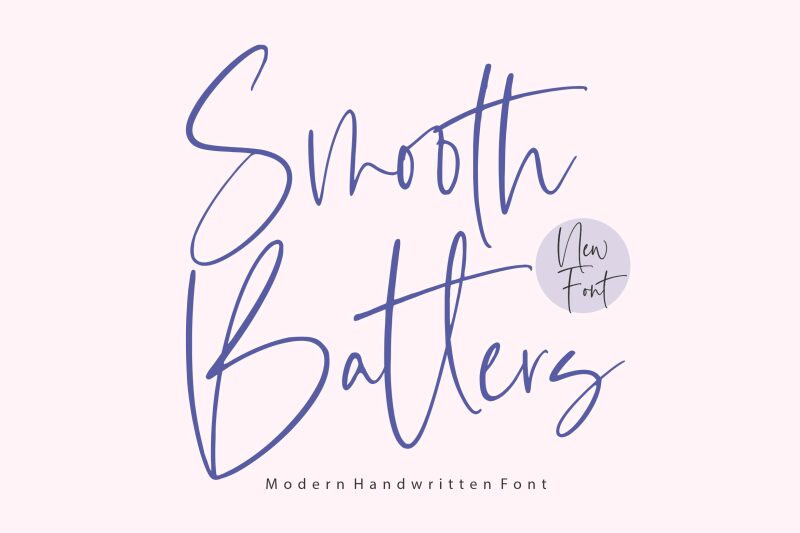
Smooth Batters
Smooth Batters, designed by Balpirick Studio, is a delightful handwritten font that exudes elegance and sophistication.
With its light weight and signature style, this font is perfect for adding a touch of charm to wedding invitations, love letters, and personalized stationery. Its fluid strokes and graceful curves make it an ideal choice for branding projects seeking a refined yet approachable aesthetic. Smooth Batters lends itself to creating memorable logos, packaging designs, and social media graphics that captivate audiences with their effortless beauty.